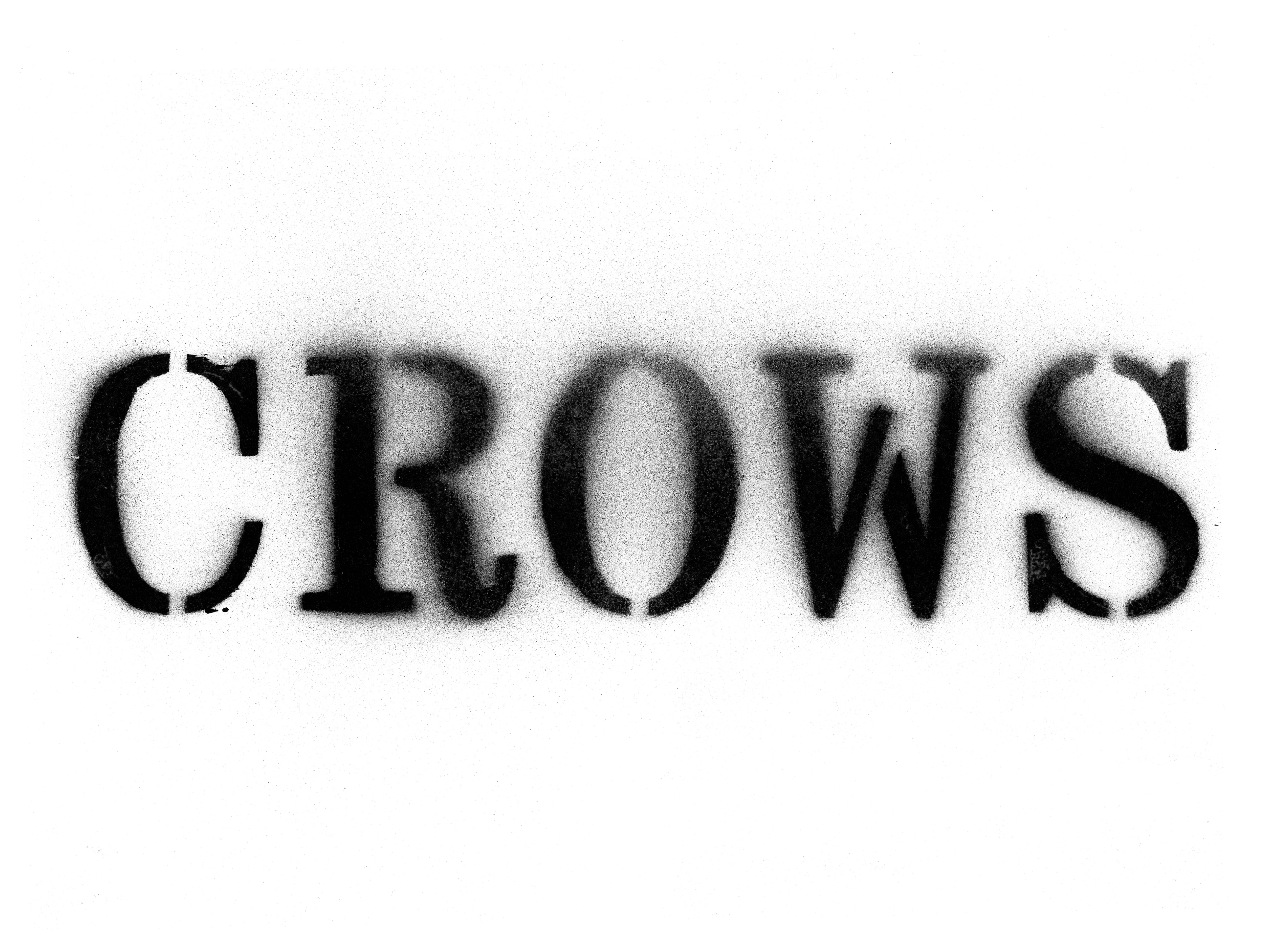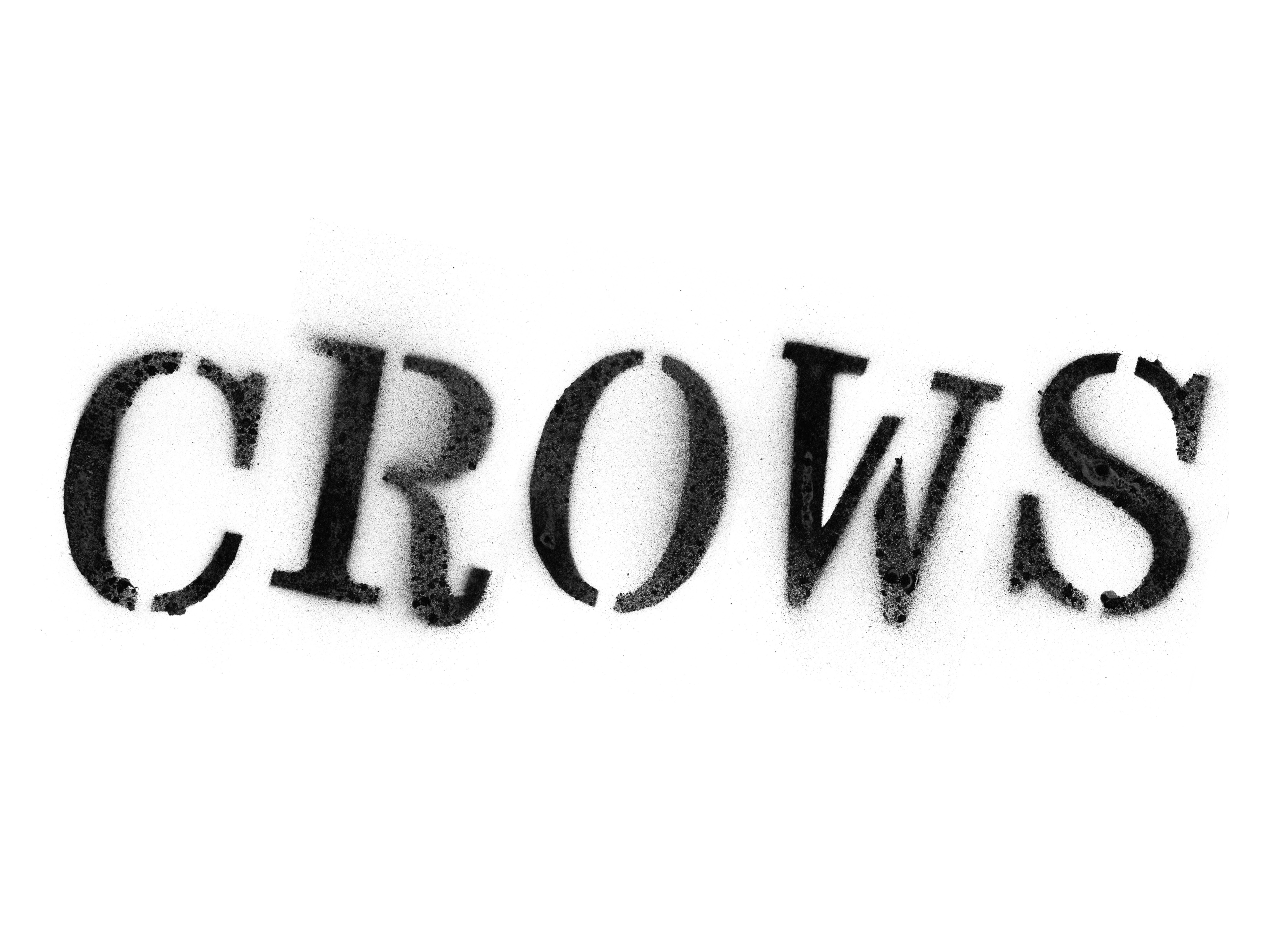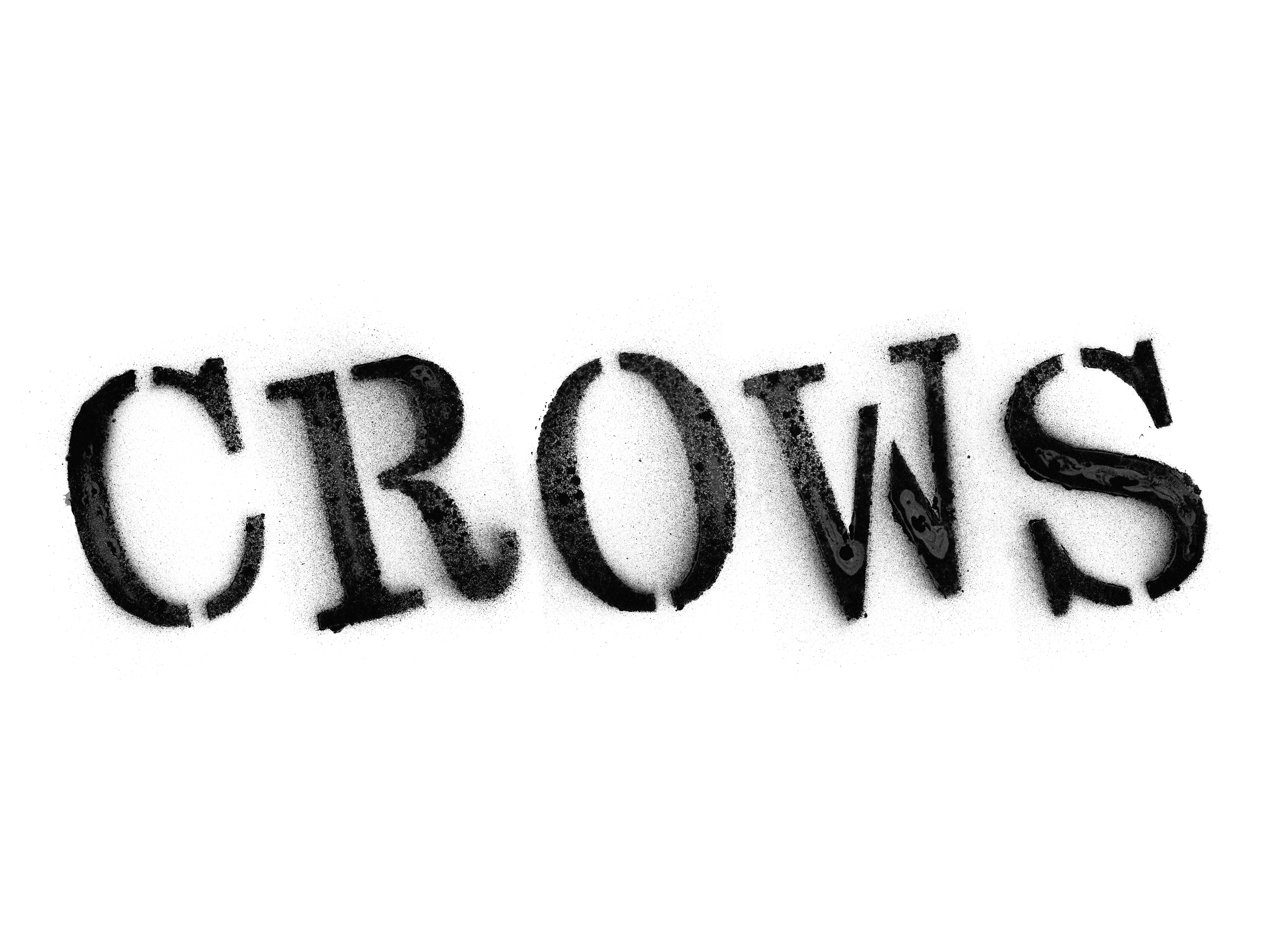
Crows
- Twisted Stencil
- Rotated Stencil
- Regular Stencil
- Twisted
- Rotated
- Regular
About Crows
Crows is a monospaced serif whose styles trace a narrative, a trajectory: that of typefaces originally designed for institutional print and widely circulated—such as Century Schoolbook—which, decades later, were transferred, reproduced, and reworked for independent graphic uses, from dry-transfer lettering like Letraset to the DIY print culture of the late twentieth century. Crows brings this lineage into a contemporary system where structure, mechanical rhythm, and graphic friction coexist.
Its Regular style establishes a perfectly stable foundation: open counters, moderate contrast, firm serifs, and balanced proportions ensure readability across a wide range of sizes and reproduction conditions.
From this base, the Rotated and Twisted styles retain the same underlying skeleton while shifting alignment, introducing calibrated tension within a unified framework. In the fixed-width logic of a monospaced grid, spacing becomes mechanical and even, making small deviations perceptible and turning alignment into an active visual parameter. The Stencil styles, in turn, extend the system through functional cuts that immediately evoke the worlds of marking and duplication.
Finally, a wide set of alternate glyphs allows Crows to assert itself as a typographic system that is as clear and efficient as it is playful, expressive, and multifaceted.